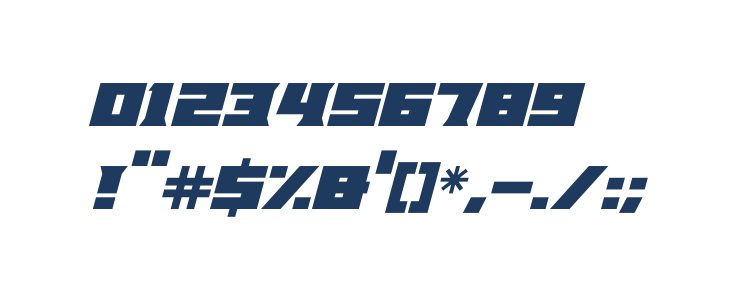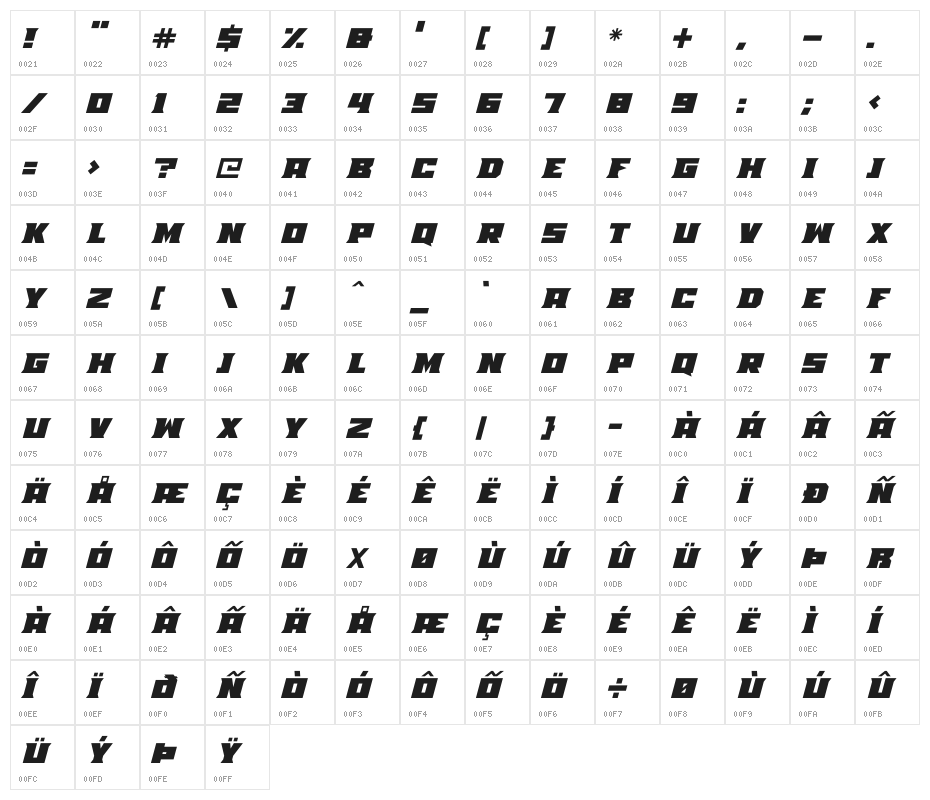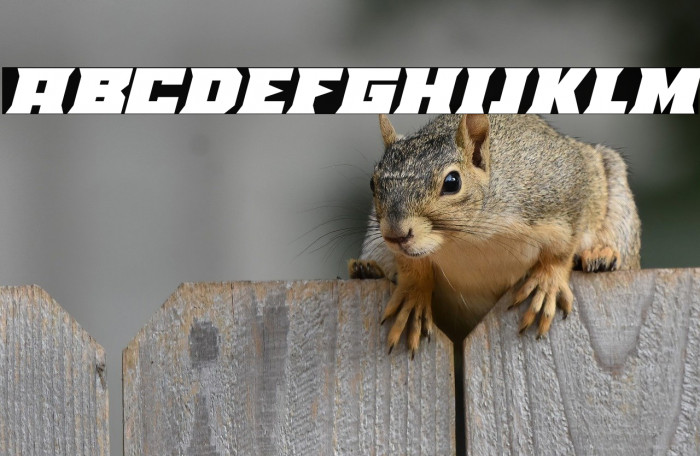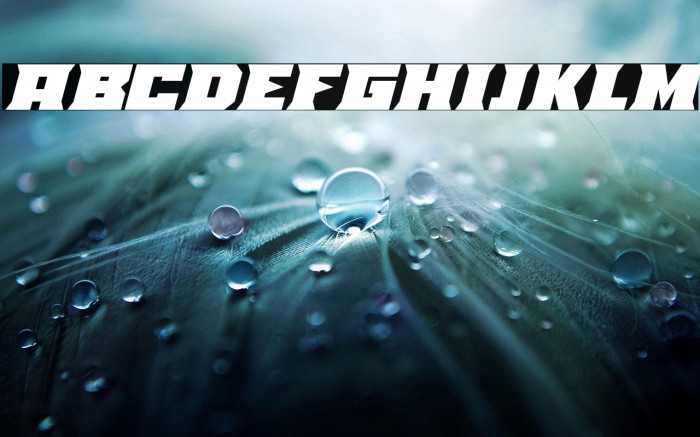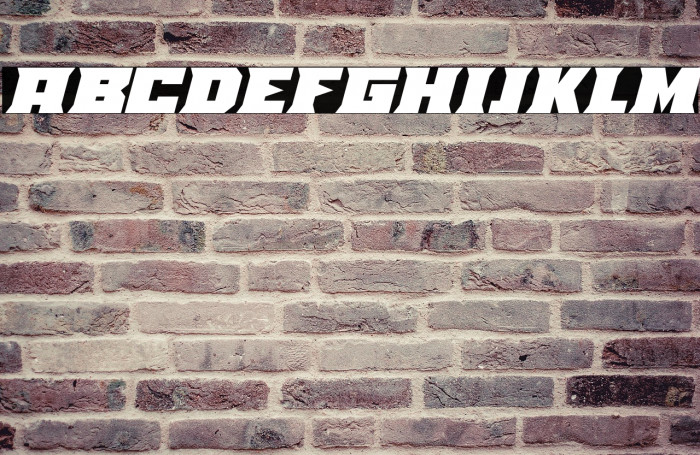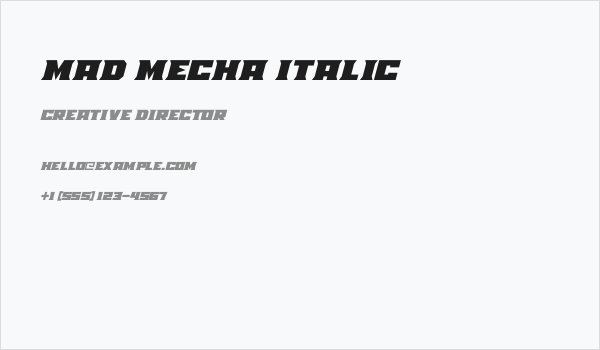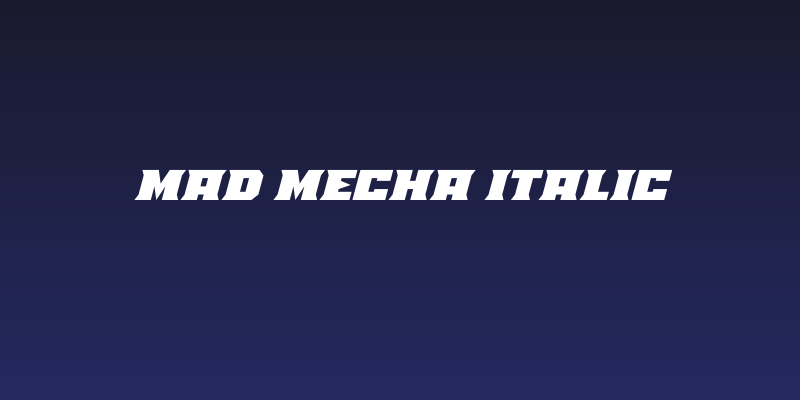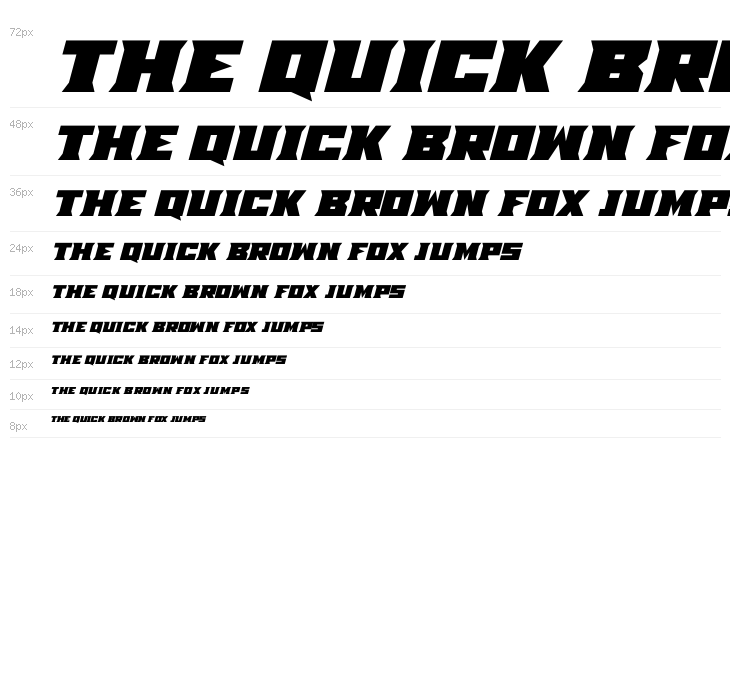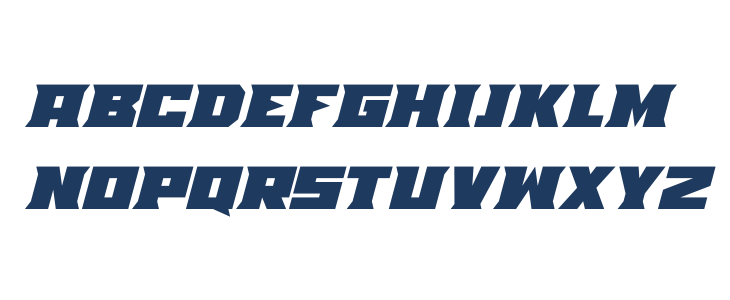
Mad Mecha Italic Font
Mad Mecha Italic Description
This font features a bold and dynamic design with a futuristic and mechanical aesthetic. The characters are sharply angular, with a distinct slant that gives them a sense of motion and energy. The uppercase and lowercase letters maintain a consistent style, characterized by their thick strokes and geometric shapes. The numbers and special characters follow the same design principles, ensuring uniformity across all glyphs. This font's aggressive and modern look makes it ideal for projects that require a strong visual impact.
| Proposed Projects | Ideal for sci-fi themed designs, video game titles, tech branding, and dynamic posters. |